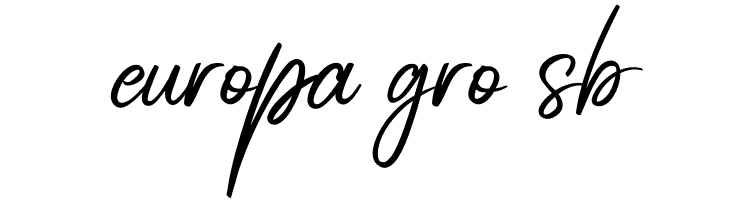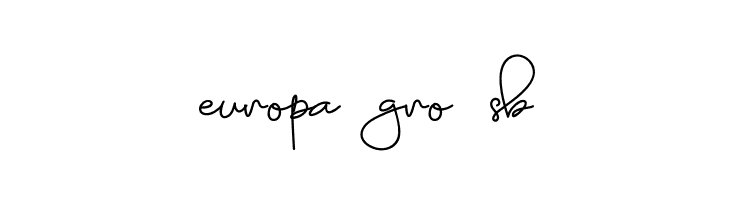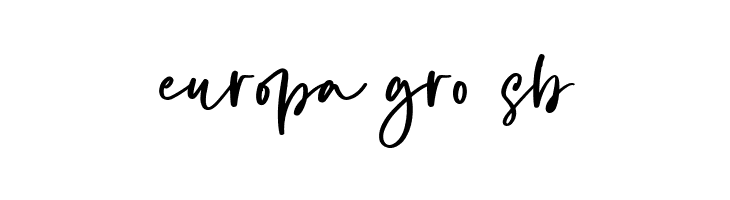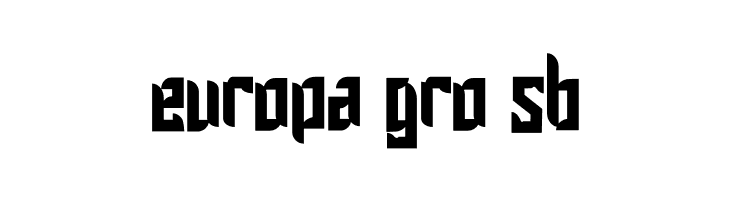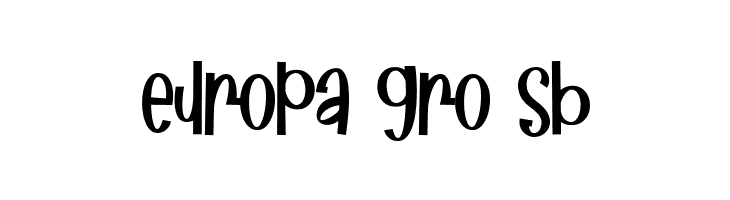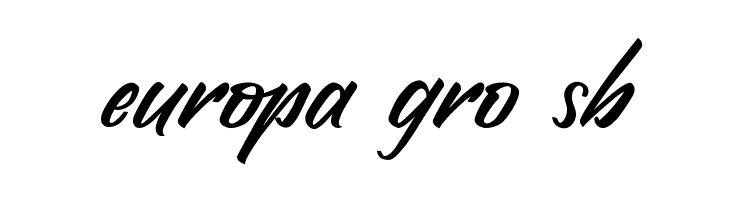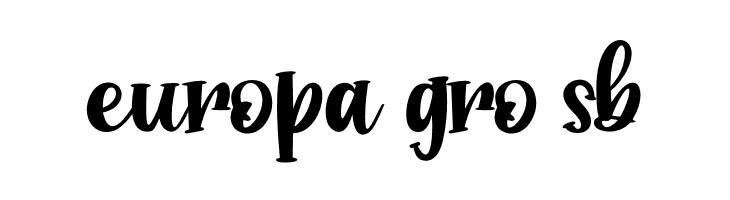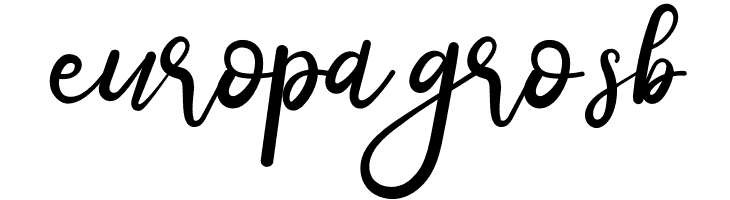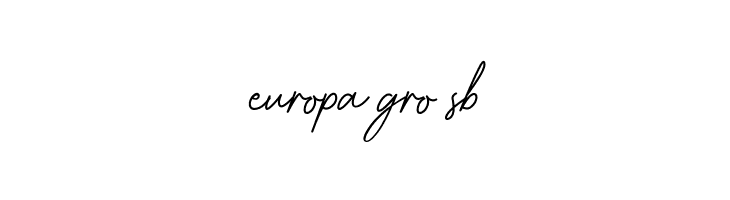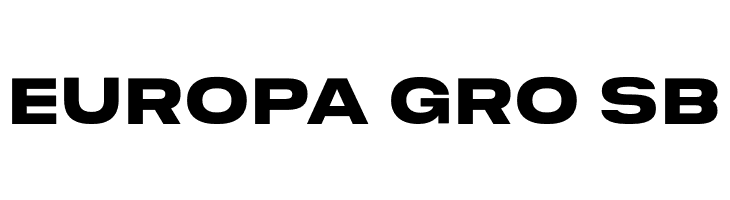
A dynamic, cursive font with fluid, interconnected letters and elegant strokes.
A whimsical handwritten font with flowing, interconnected letterforms.
A lively and expressive handwritten font with fluid, dynamic strokes.
A bold, angular font with a modern and geometric style.
A playful and whimsical font with bold, tall letters and a dynamic slant.
A bold, expressive script font with dynamic flow and calligraphic elegance.
A bold, playful script font with energetic and expressive characters.
A dynamic and flowing script font with elegant, cursive letterforms.
A graceful, handwritten script font with elegant, flowing characters.
A bold, modern sans-serif font with geometric shapes and uniform spacing.